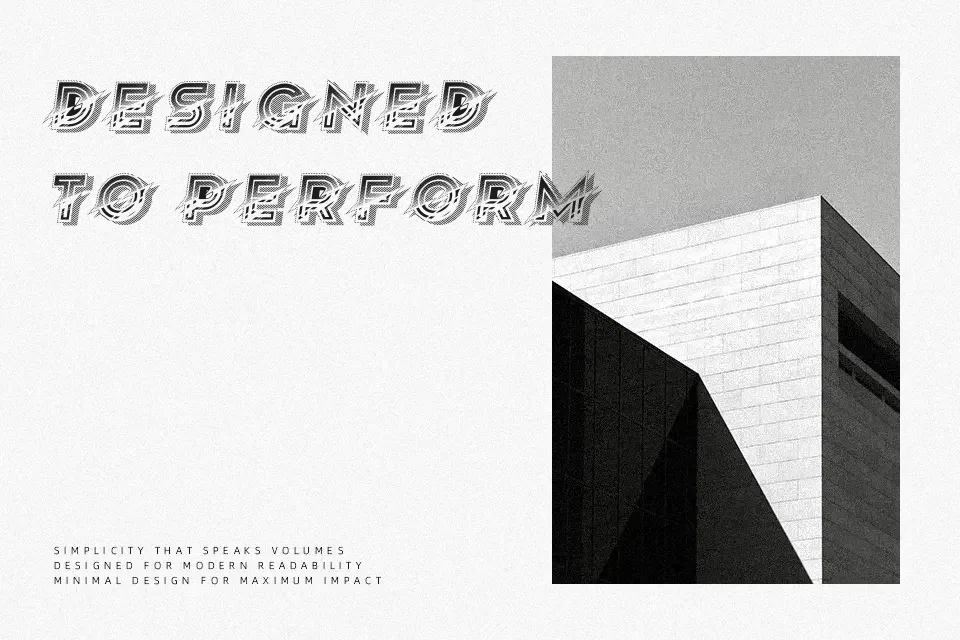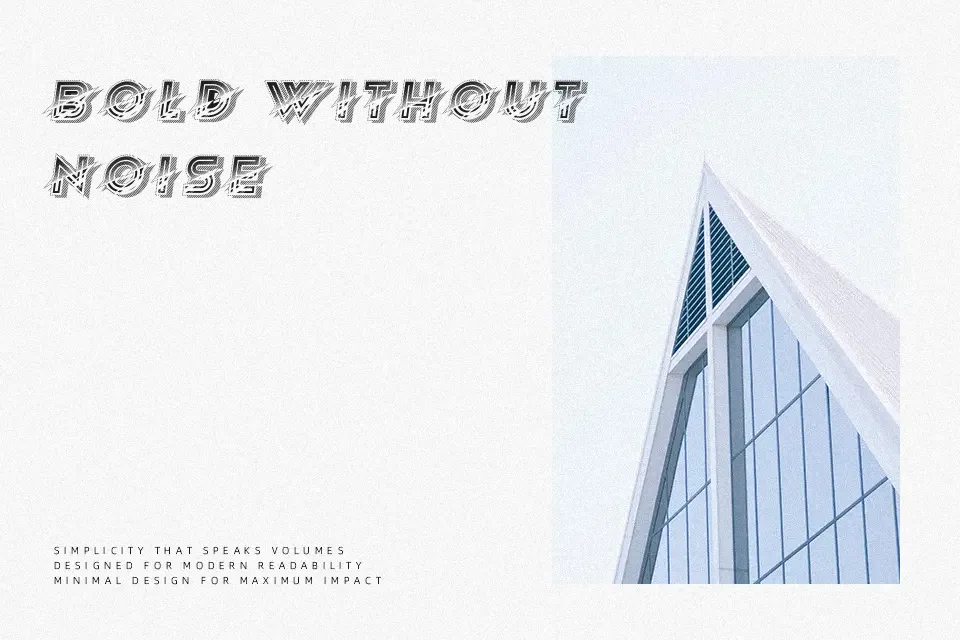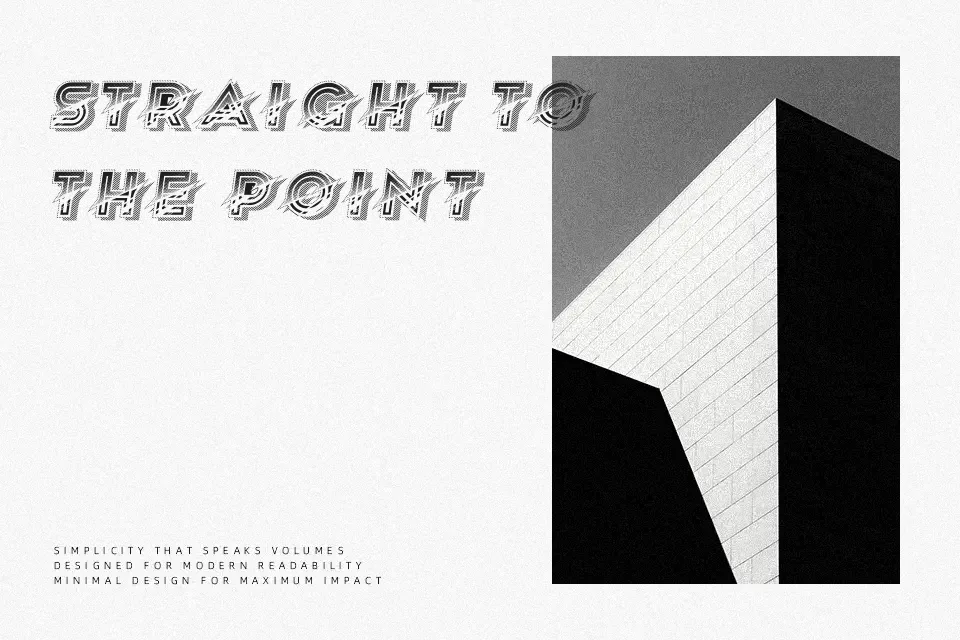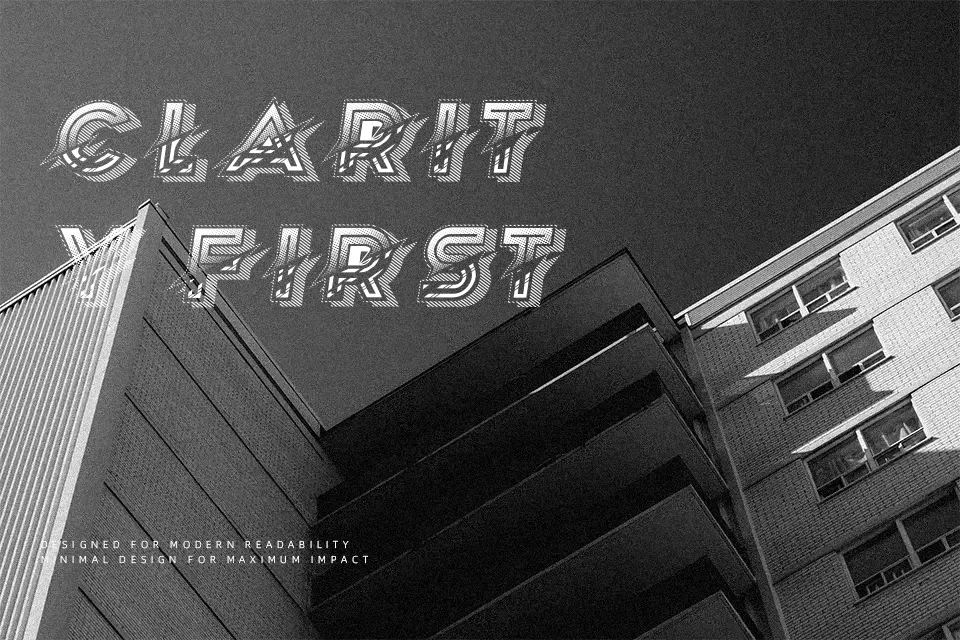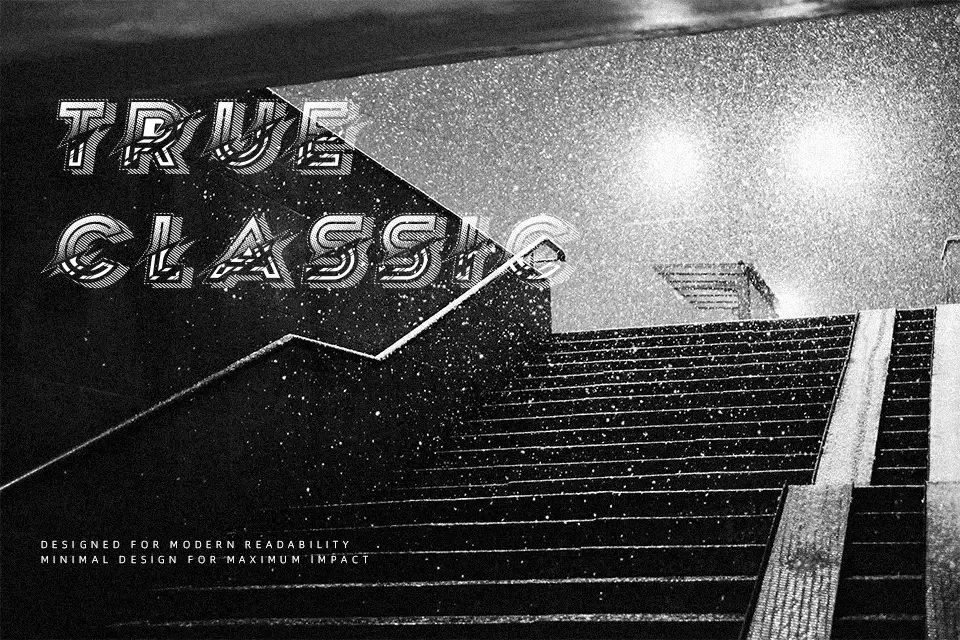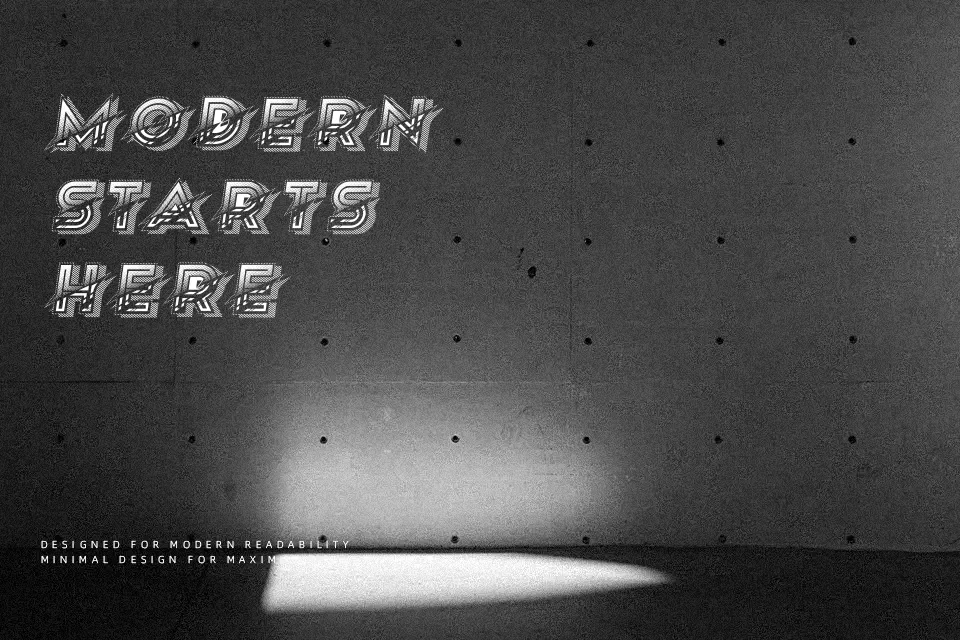
Pressing Font
Pressing Font features a distorted sans-serif design defined by thick, slashed strokes and aggressive deformations. The uppercase-only letterforms maintain rigid proportions while incorporating disruptions that create a sense of raw motion. Spacing is tightly controlled to preserve the solid impact of the dense characters, though the heavy visual weight requires careful handling in layouts. The bold letterforms maintain strong visibility in large display text, excelling in high-energy contexts like extreme sports graphics and modern event flyers. However, the intense structural cuts significantly reduce clarity at reduced scales, meaning these decorative details become less effective at smaller sizes. Dense forms reduce comfort during extended reading, making it unsuitable for continuous paragraphs or dense editorial content.
extreme sports posters
video game title screens
streetwear apparel graphics
underground music festival banners
Perfect for branding, gaming, and headline, with a bold and decorative style.